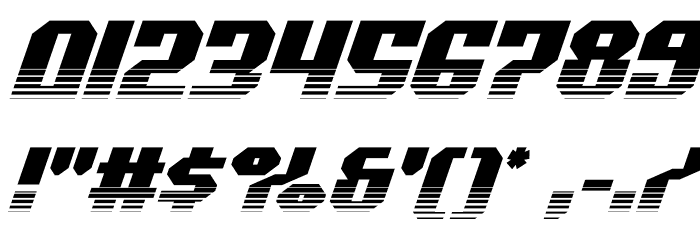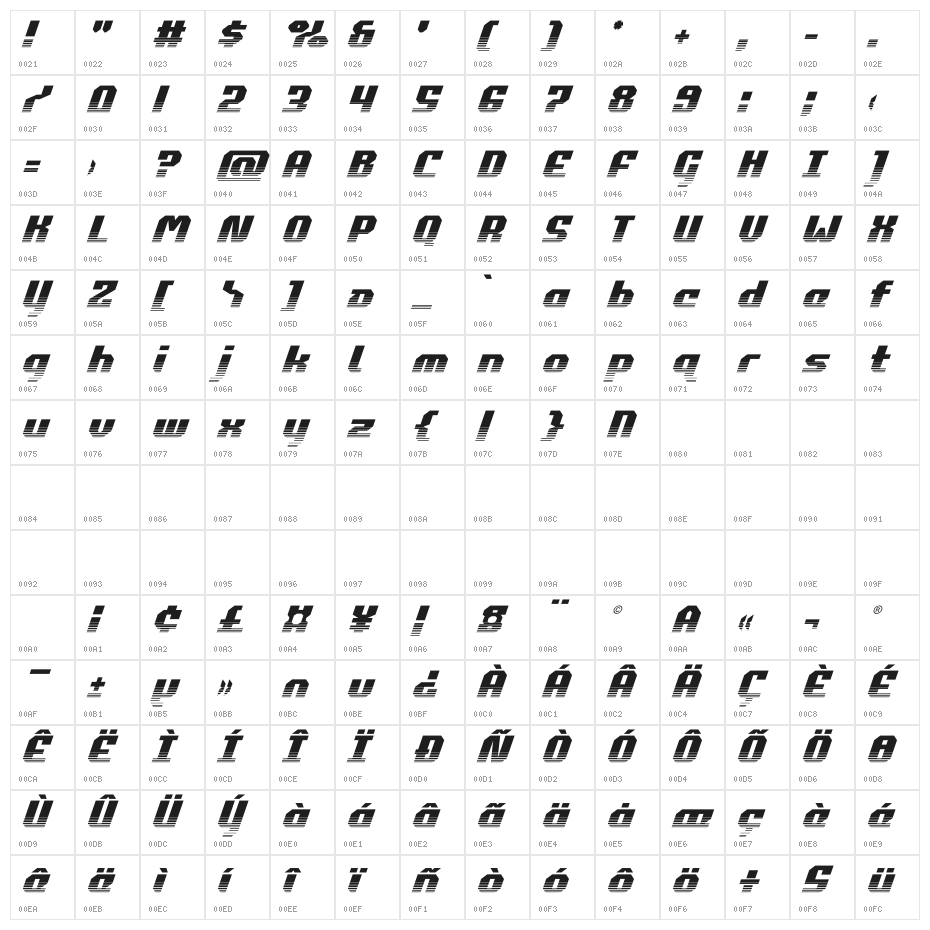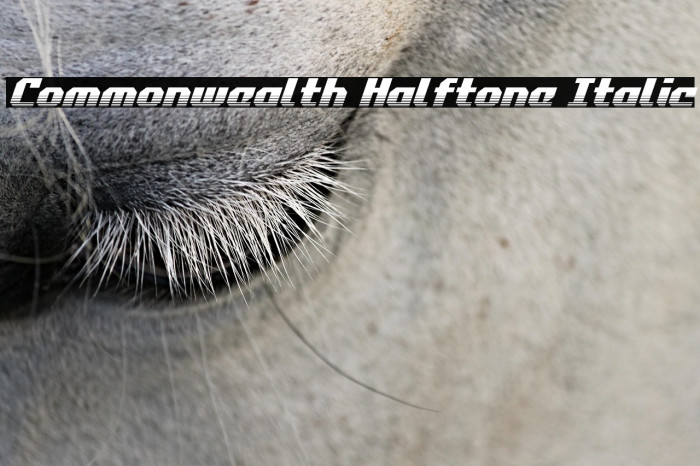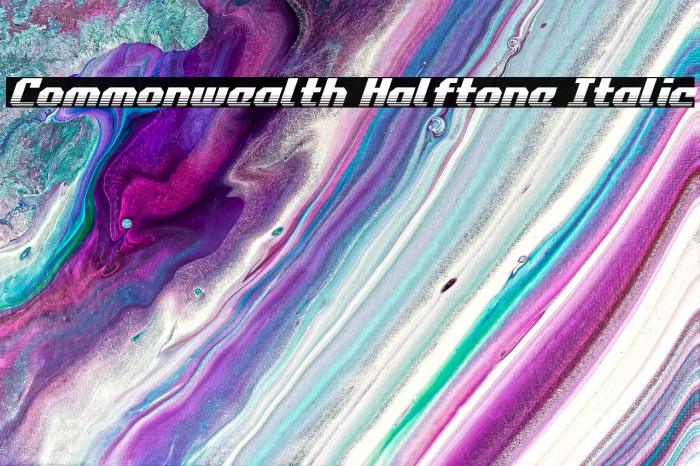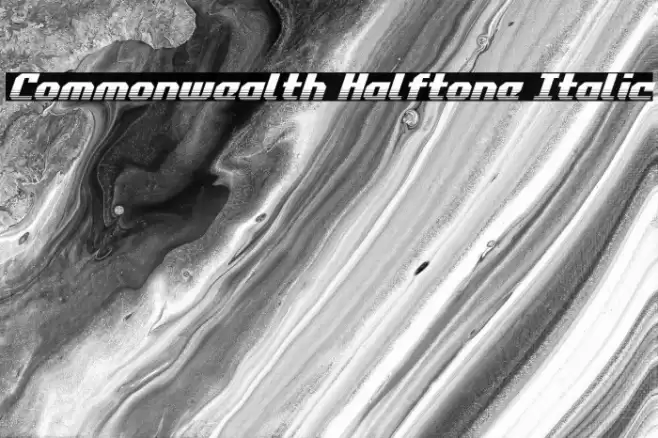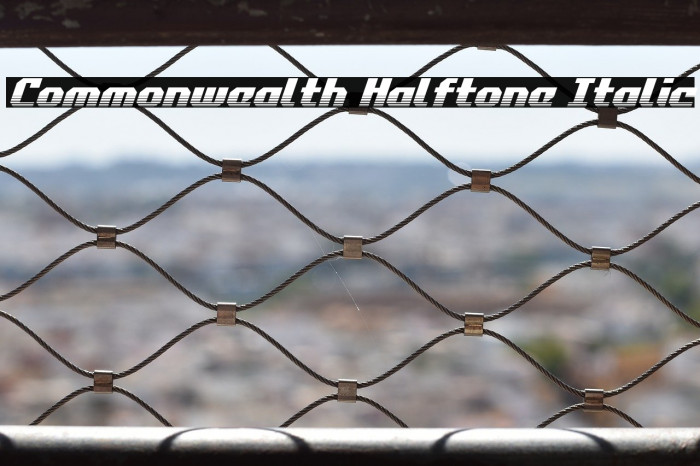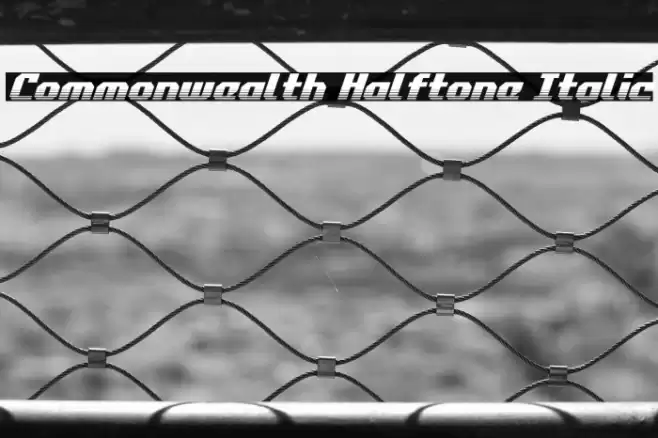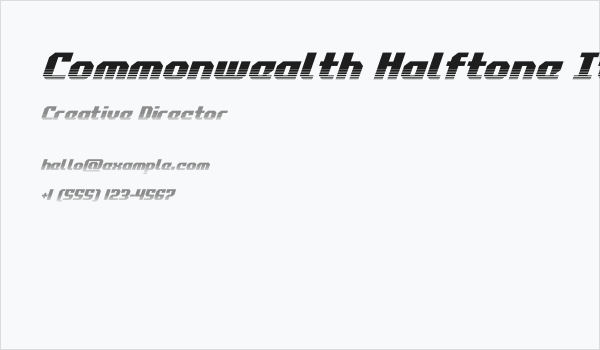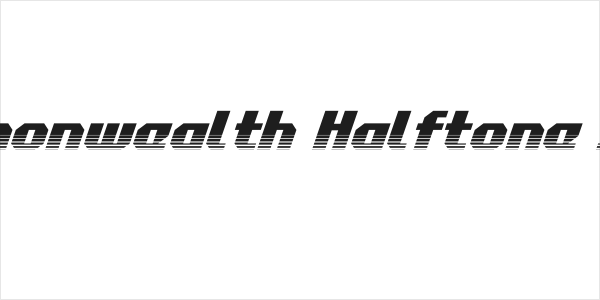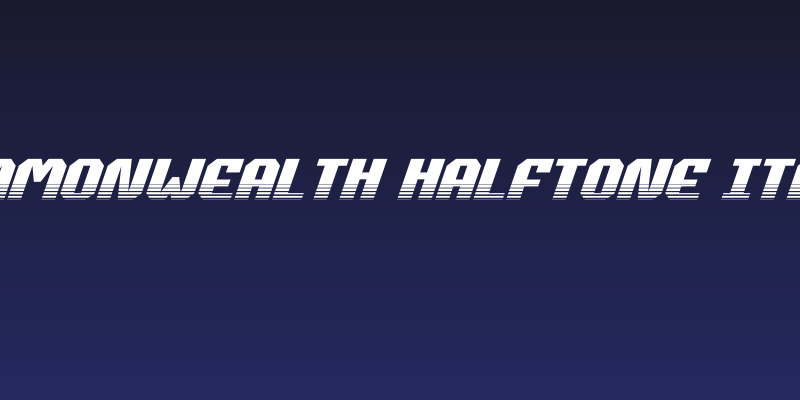
Commonwealth Halftone Italic Font
Commonwealth Halftone Italic Description
This font features a bold, italicized style with a unique halftone effect that gives it a dynamic and futuristic appearance. The characters are designed with horizontal lines that create a sense of movement and speed. The uppercase and lowercase letters maintain a consistent slant, enhancing the italicized look. The numbers and special characters follow the same design principles, ensuring uniformity across all glyphs. This font's distinct style makes it stand out, ideal for projects that require a modern and edgy aesthetic.
| Proposed Projects | Ideal for sports branding, tech-related designs, futuristic posters, and dynamic advertising materials. |